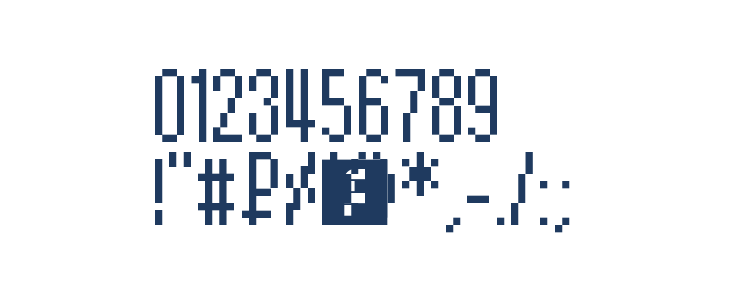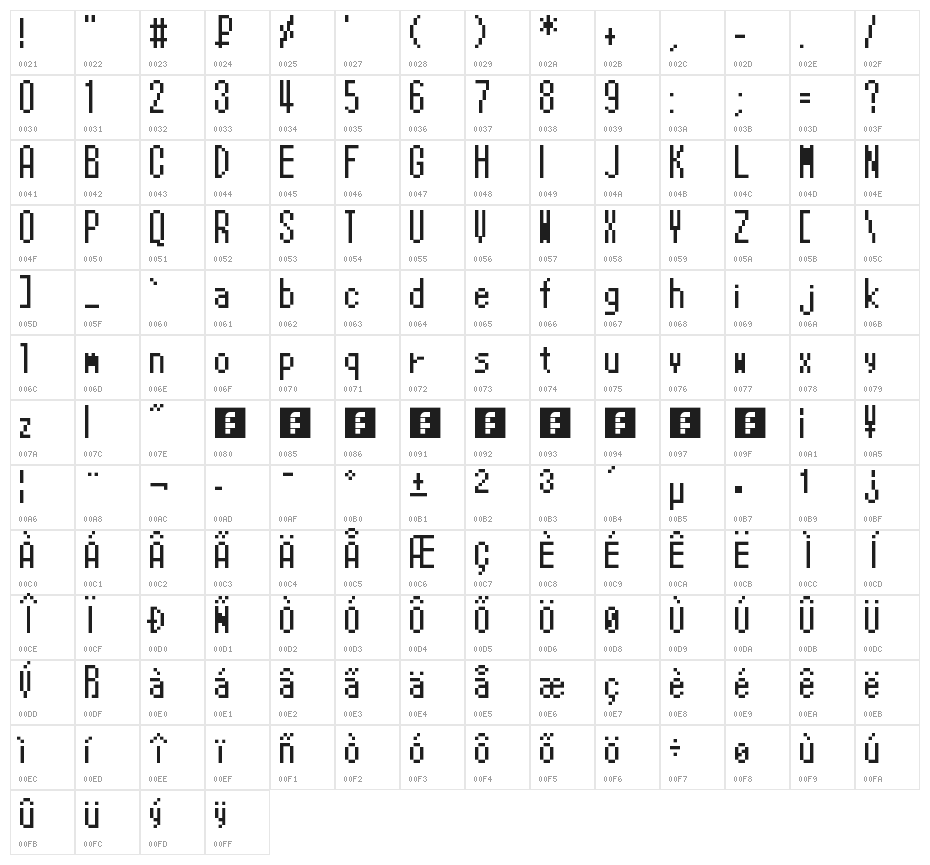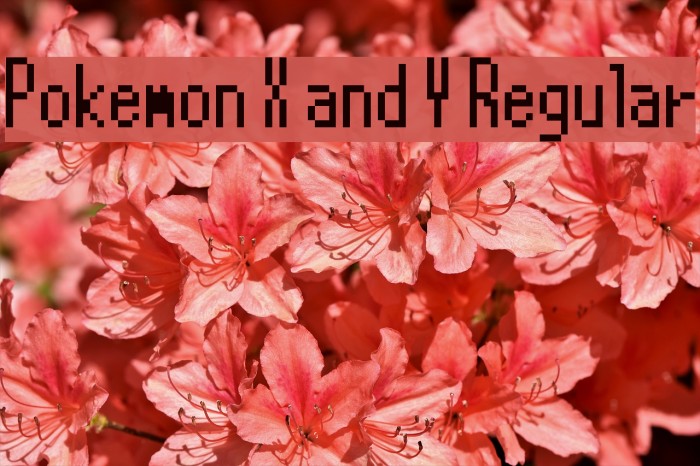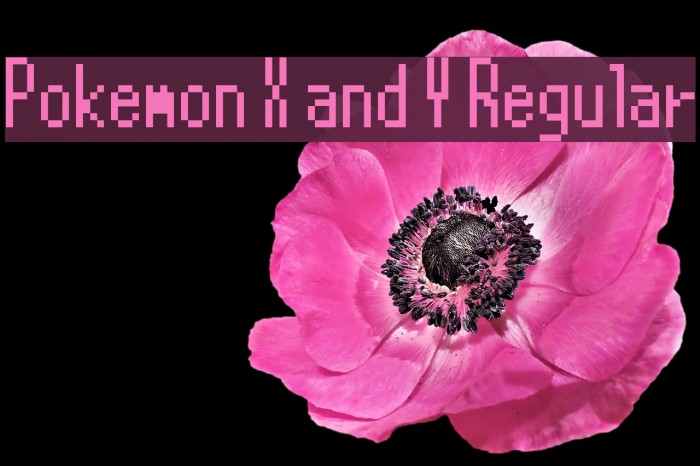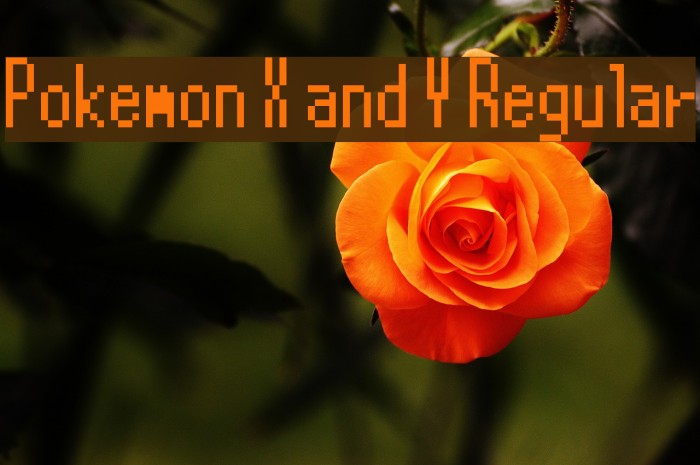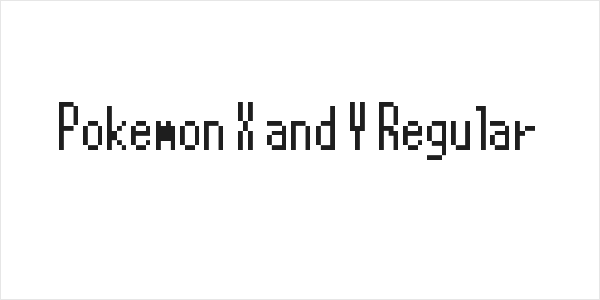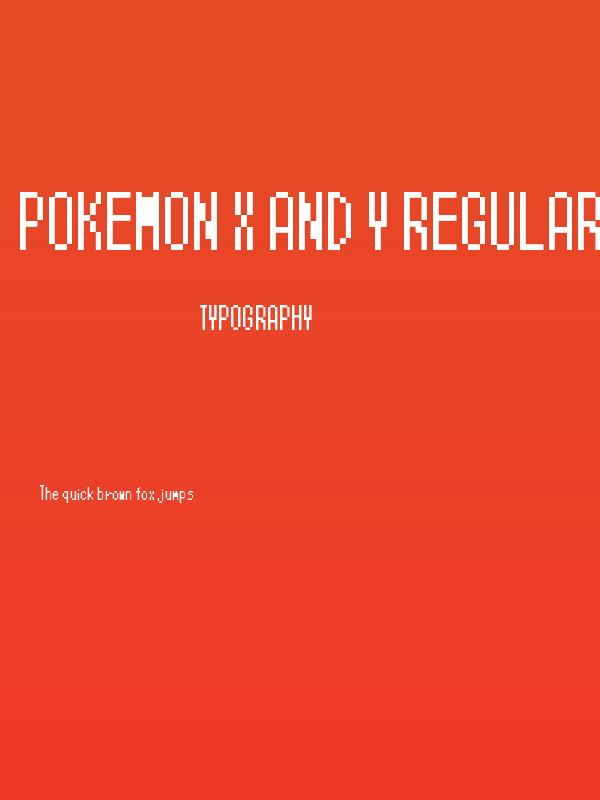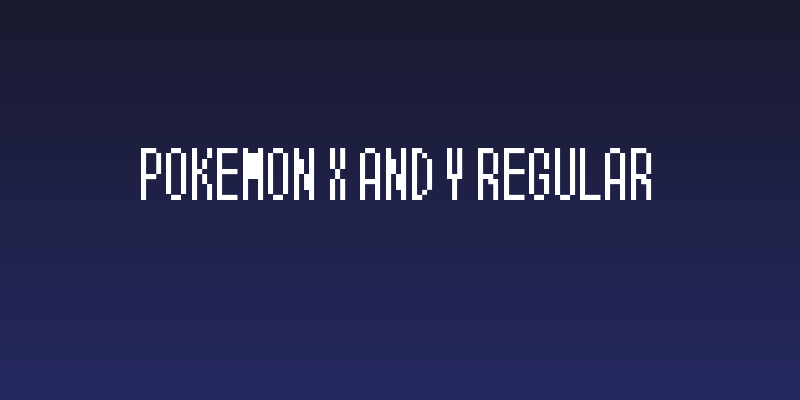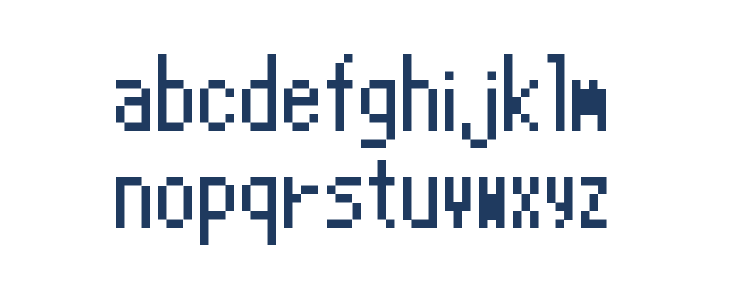
Pokemon X and Y Regular Font
Pokemon X and Y Regular Description
This font features a pixelated, blocky style reminiscent of classic video game graphics. Each character is composed of square, uniform pixels, creating a retro, digital aesthetic. The uppercase and lowercase letters maintain a consistent height and width, contributing to a monospaced appearance. The numerals and special characters follow the same pixelated design, ensuring uniformity across all elements. This font evokes nostalgia and is ideal for projects that aim to capture the essence of early digital or gaming culture.
Overall StyleRetro
Use CaseLogos, Digital art, Video game design
Proposed ProjectsIdeal for retro video game designs, digital art projects, and nostalgic branding.